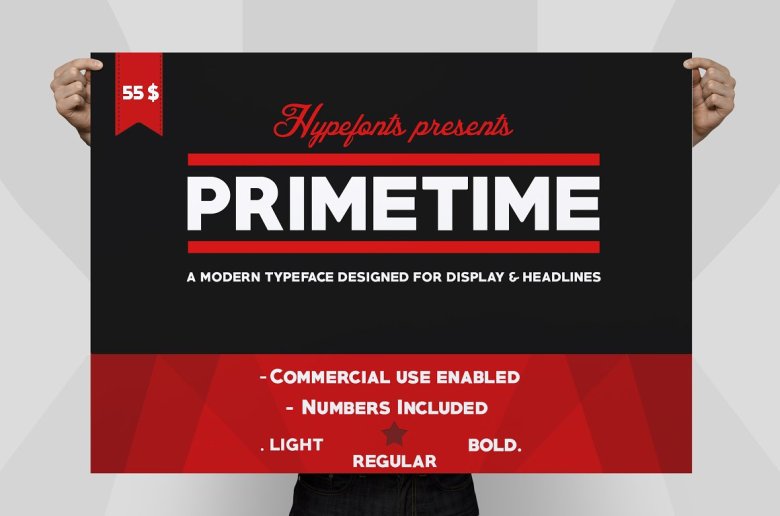
Primetime Font
Primetime © is the ultimate new font designed for display. It comes with 3 weights :  Light,Regular,Bold If you are not sure, you can try the demo version.
Primetime Sans Serif Font